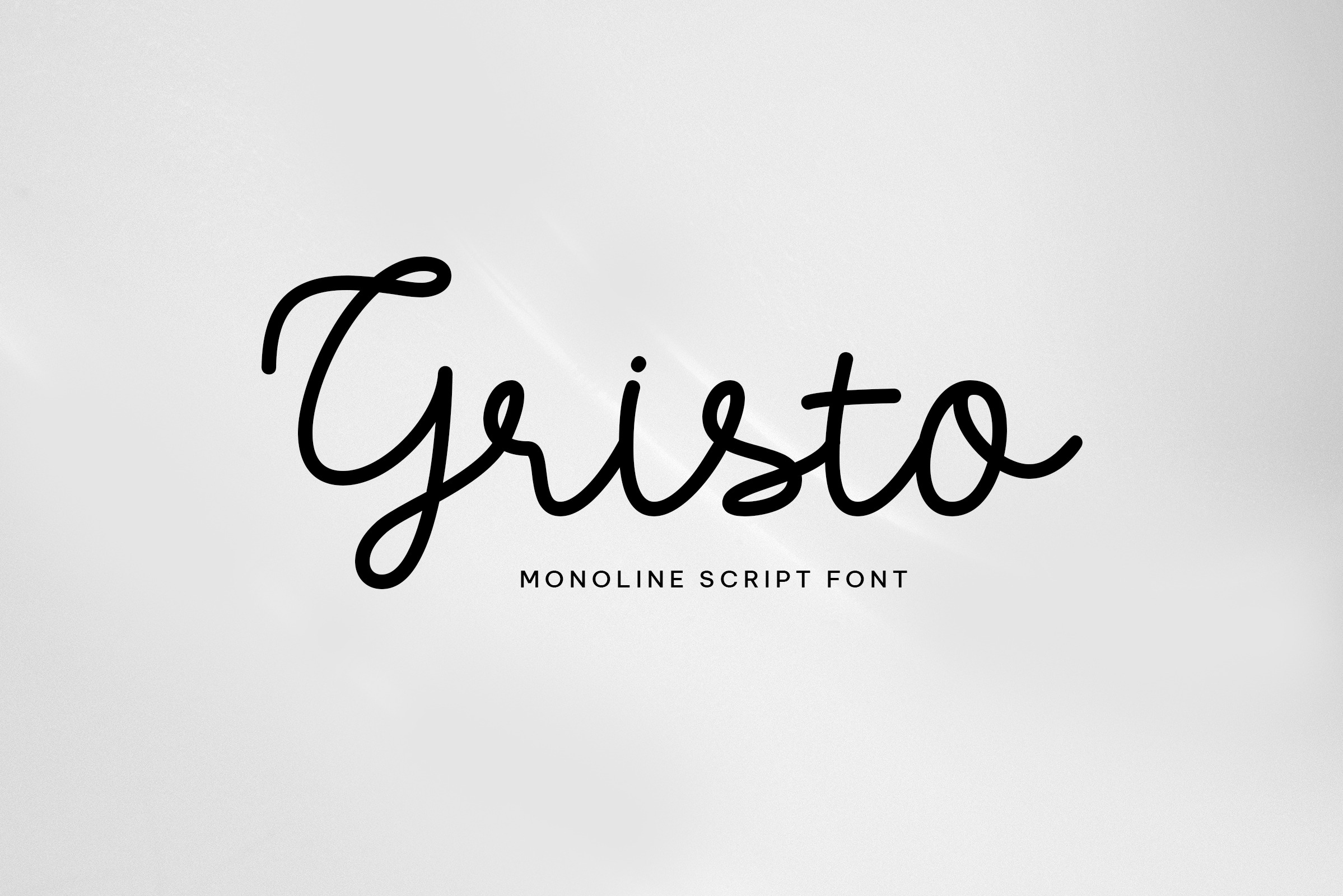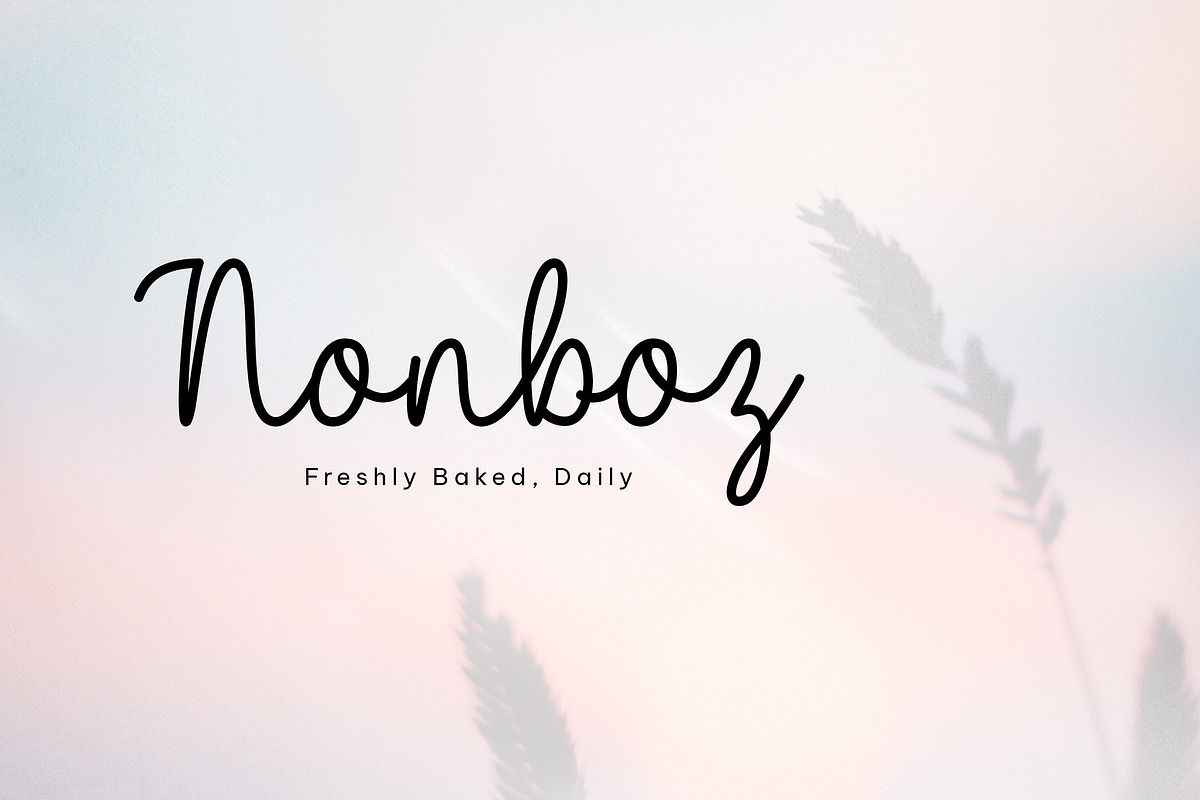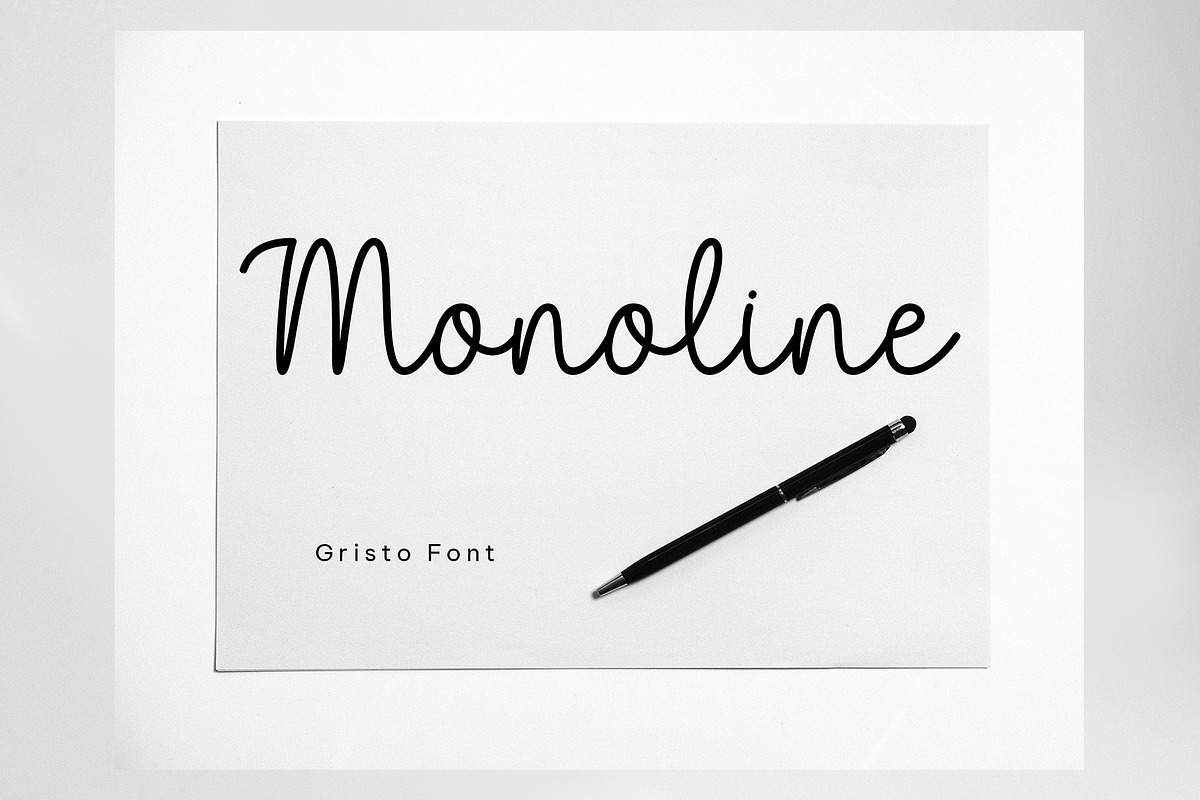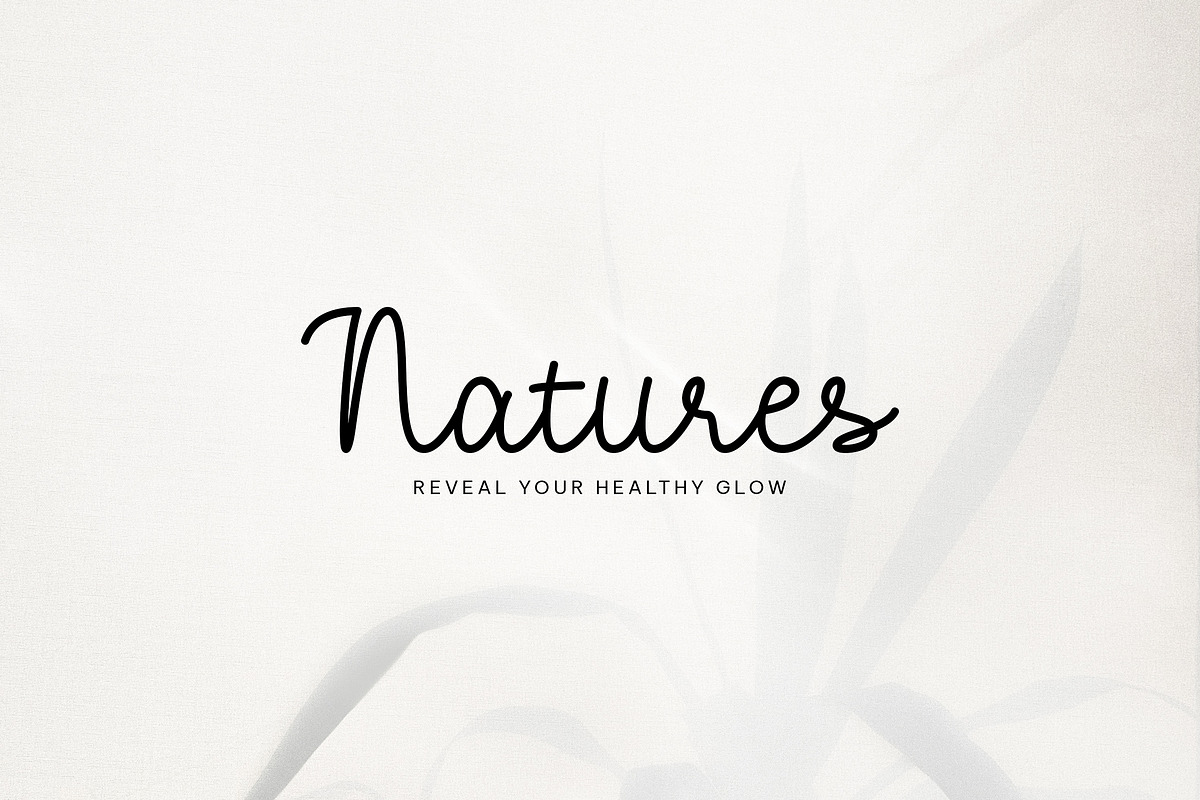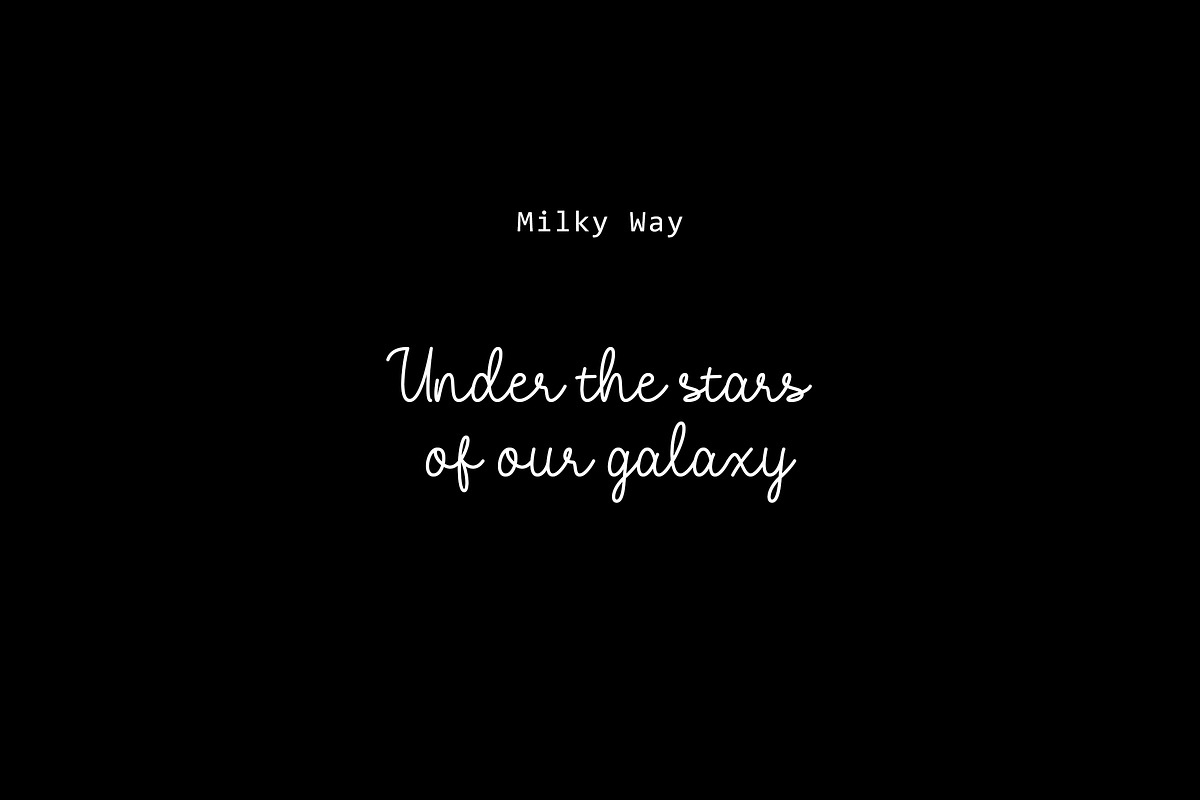
Gristo - monoline font
Introducing Gristo Our monoline font features a clean and modern design where every stroke has a uniform thickness. This characteristic provides a minimalist, elegant, and easily readable look, making it a versatile choice for a wide range of your design needs. Gristo offers a cohesive and professional appearance. Get it now and add a touch of sophisticated simplicity to your creative projects!